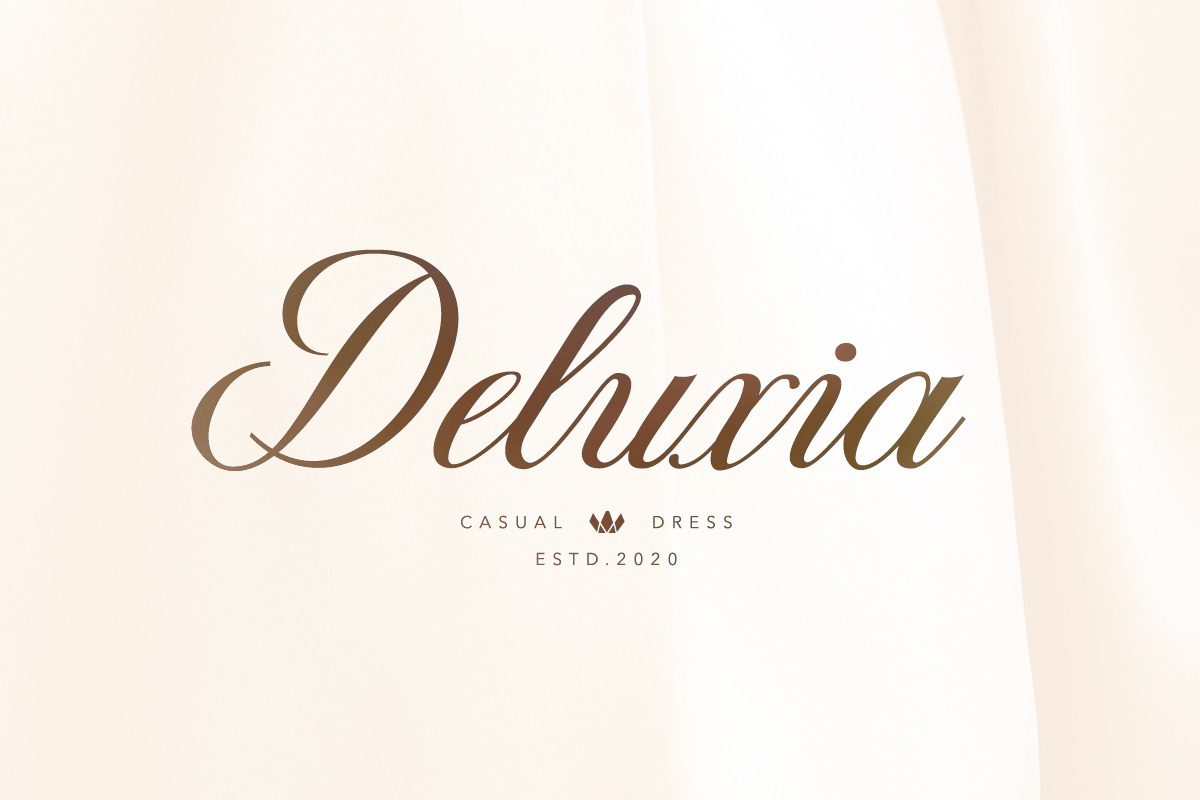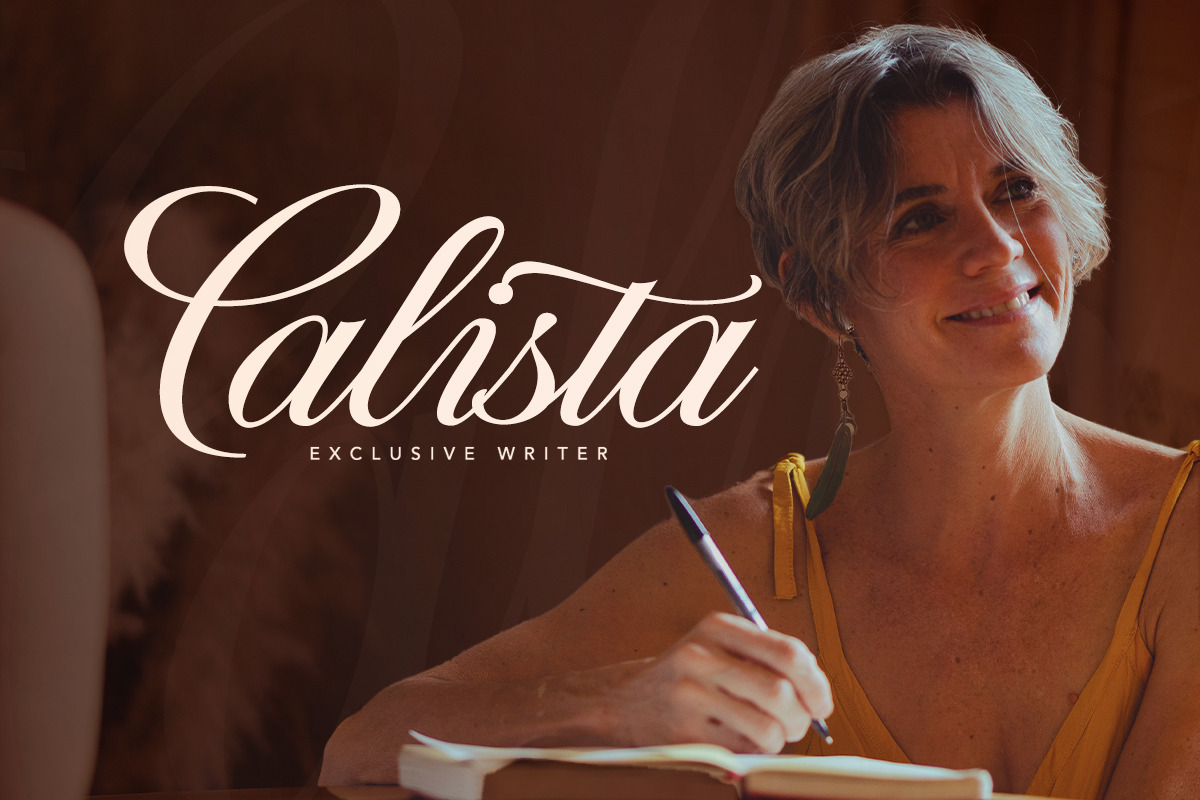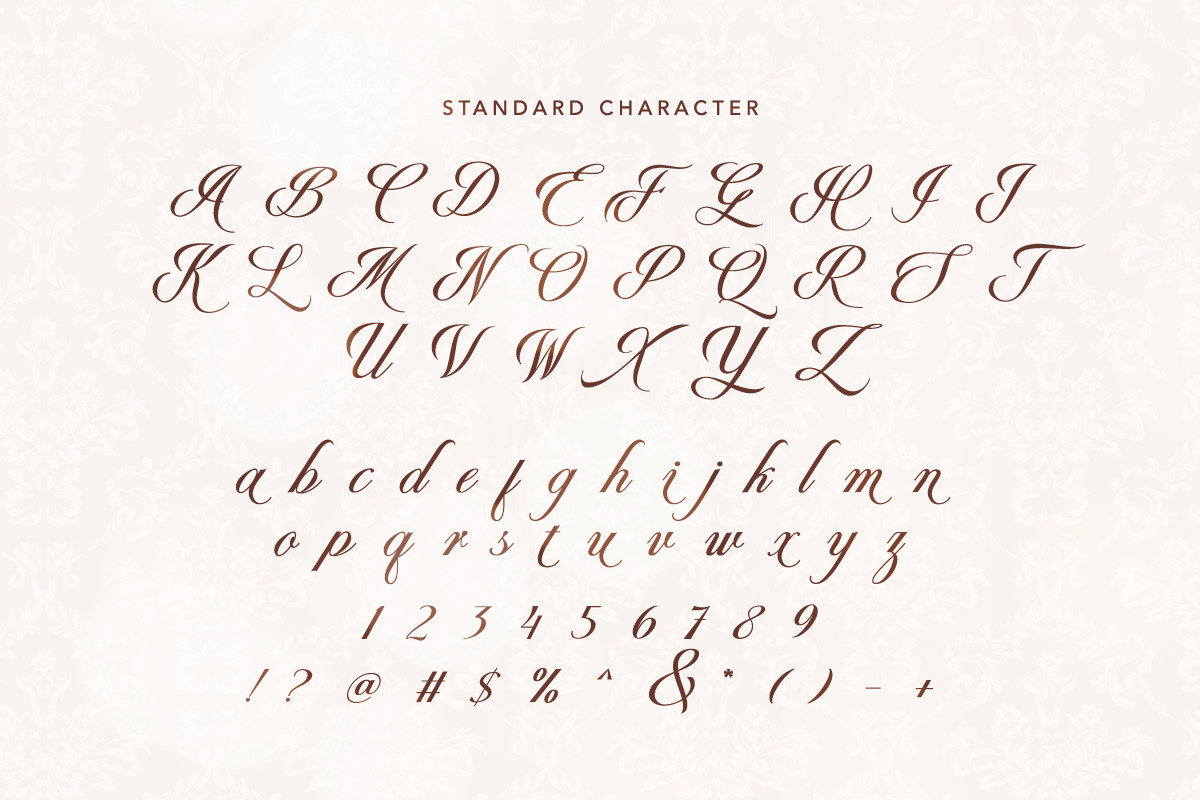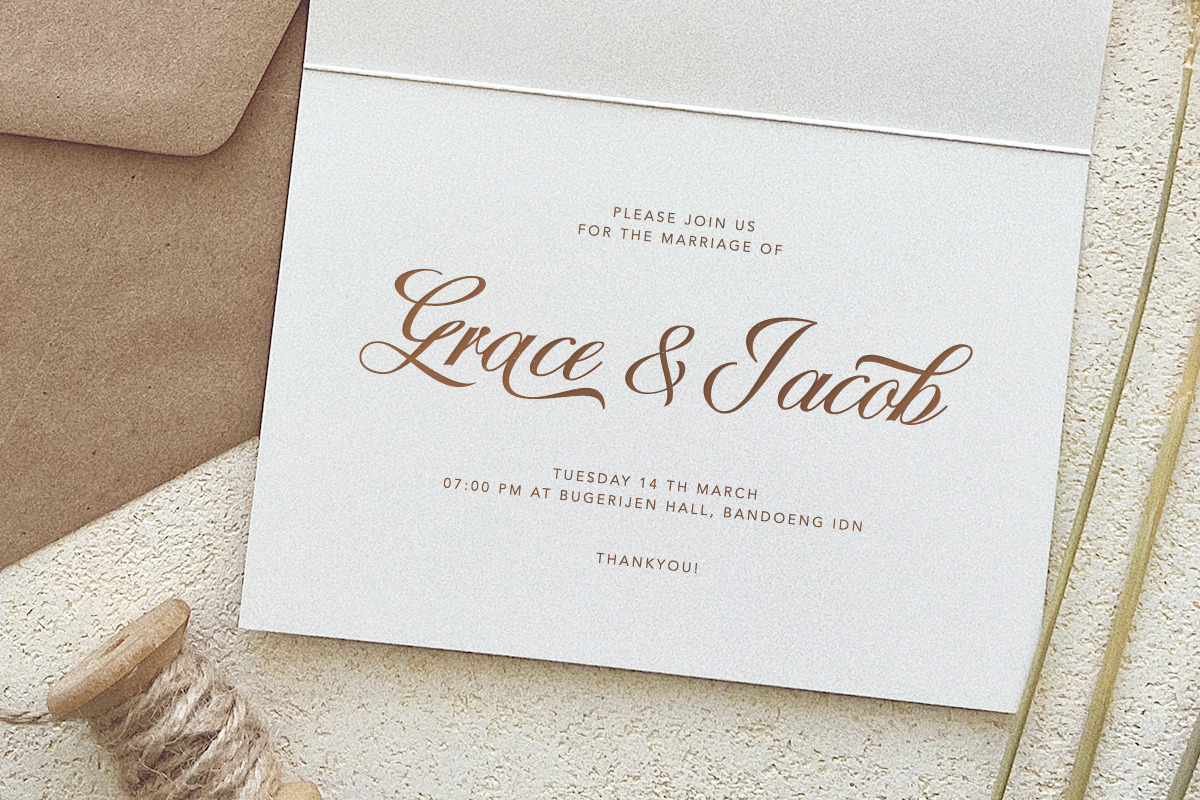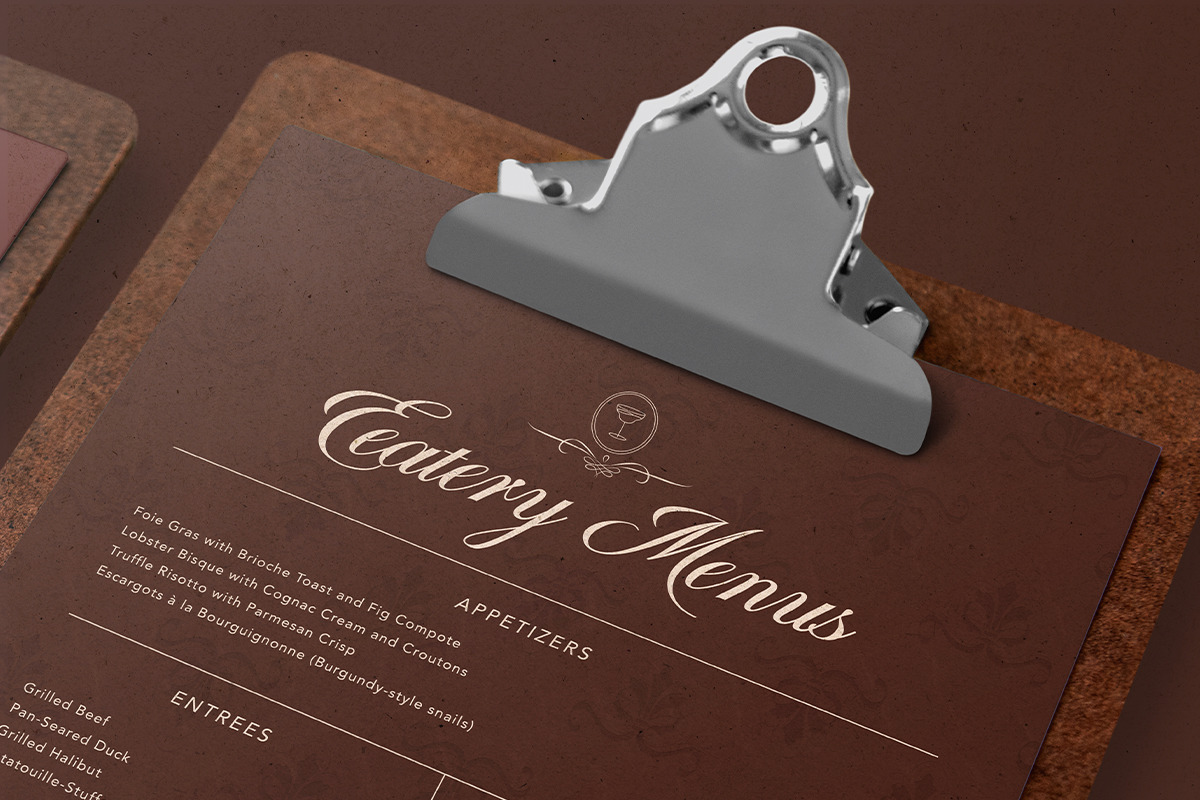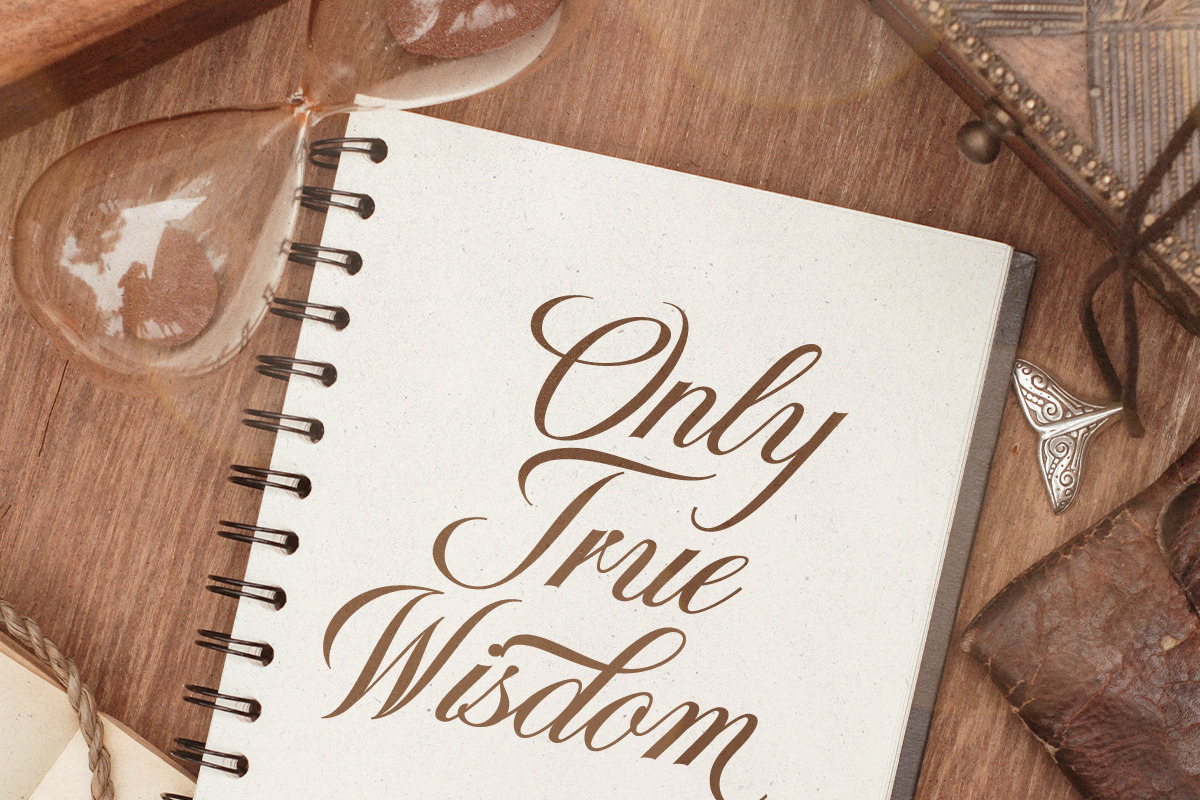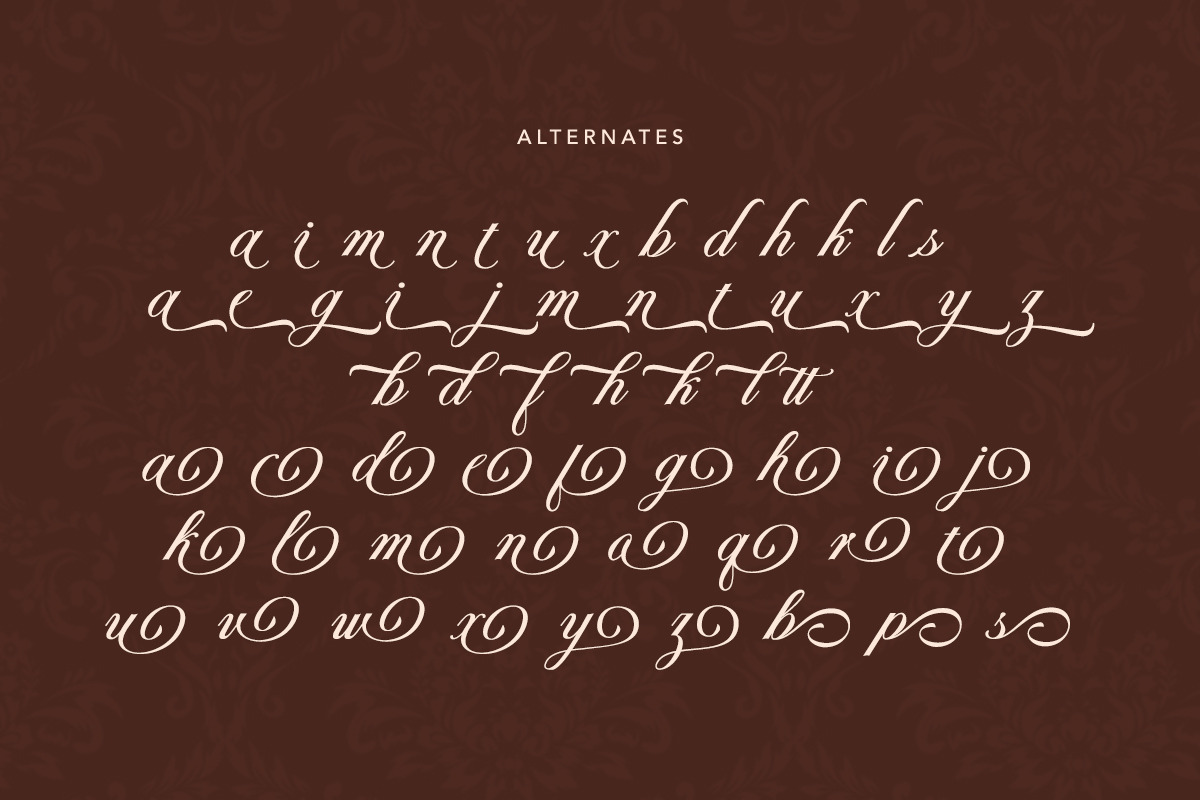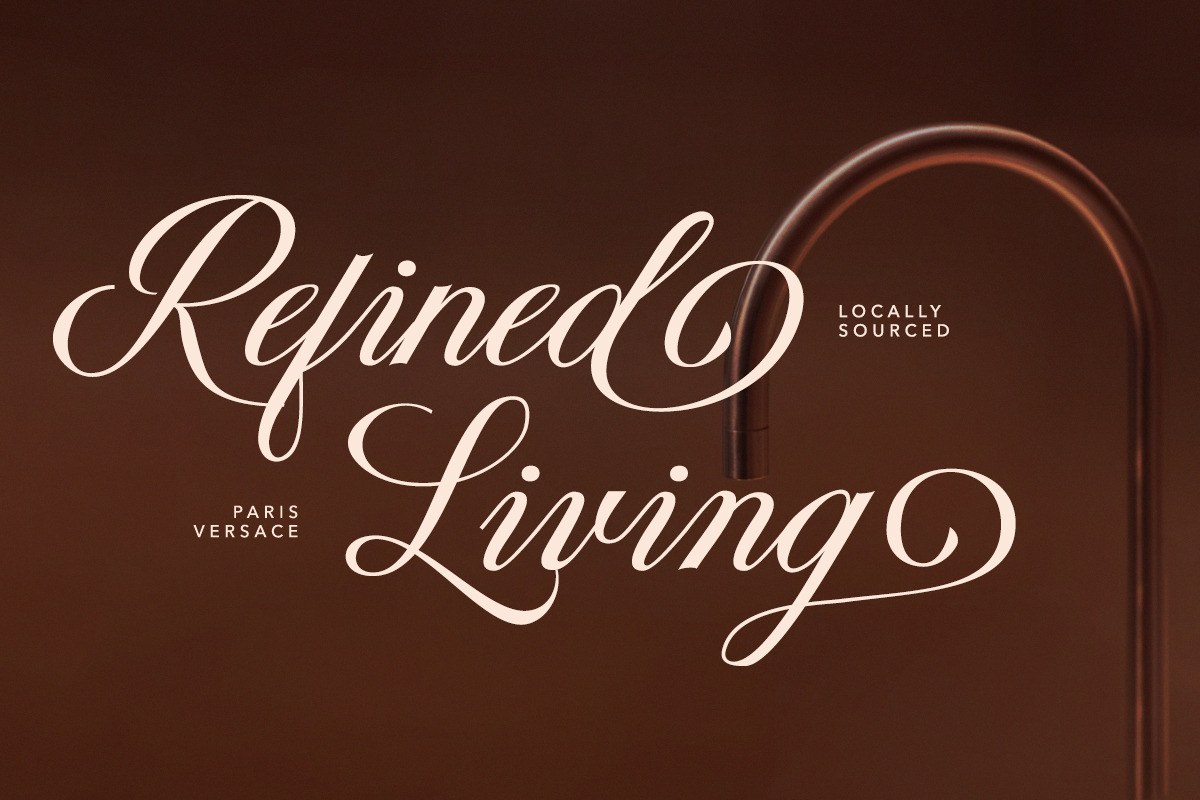
Fairydate - Luxury Script
Fairydate is a luxury script font that have many stylish alternates! With alternate characters, you can make your project more elegant and modern. You can use this font for many purposes, such as invitation wedding, quote, and branding. This font also support multi language!